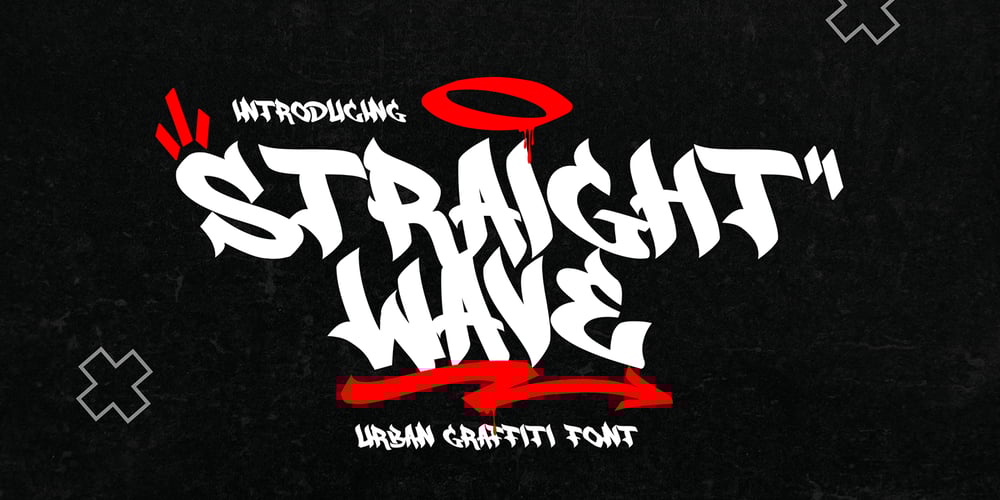
Straight Wave
Straight Wave font
Straight Wave Font Family was designed by Sipanji and published by Sipanji21. Straight Wave contains 2 styles and family package options. “Straight Wave” is a natural monoline handwritten graffiti font that includes swash characters. This font merges the consistent line thickness of monoline style with the organic, handcrafted essence of graffiti. Additionally, the inclusion of swash characters adds decorative elements or flourishes, enhancing the font’s stylistic versatility. It’s ideal for designs requiring an urban and authentic handwritten aesthetic with a touch of artistic flair provided by the swash characters.** Uppercase